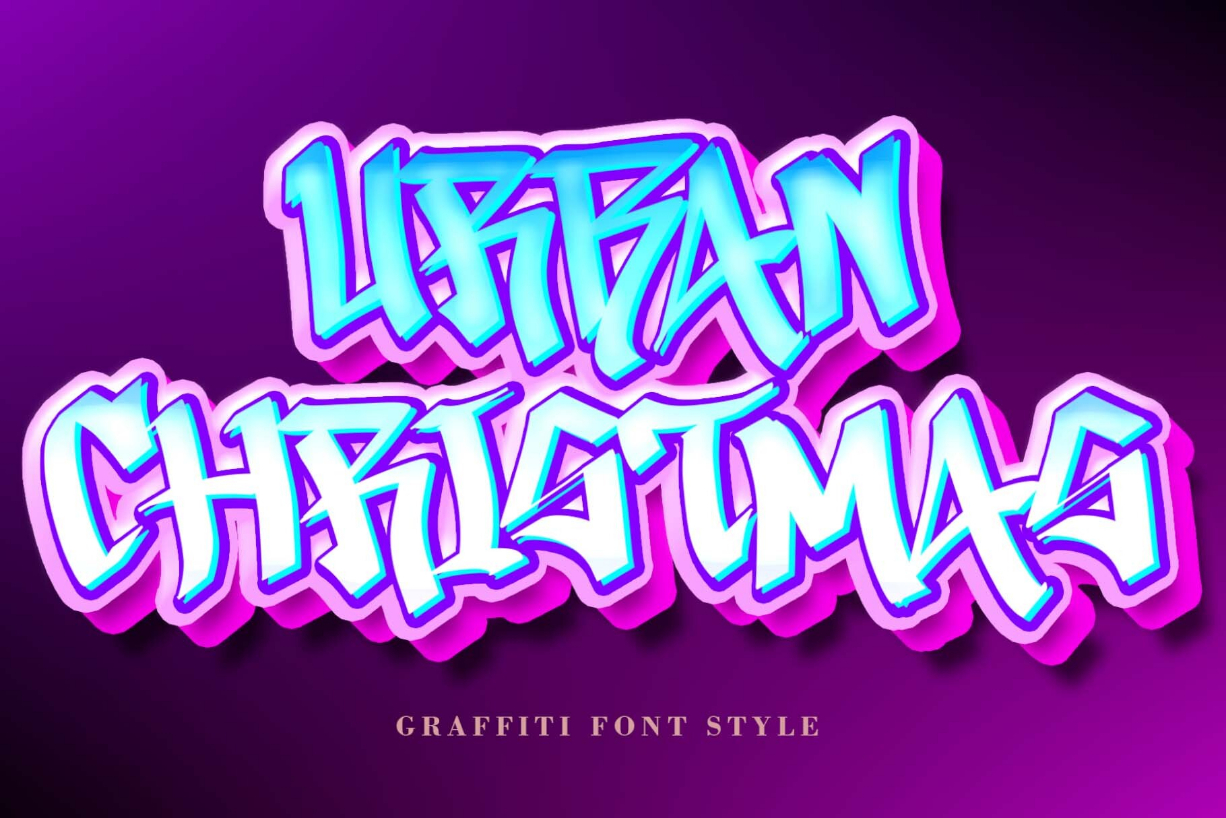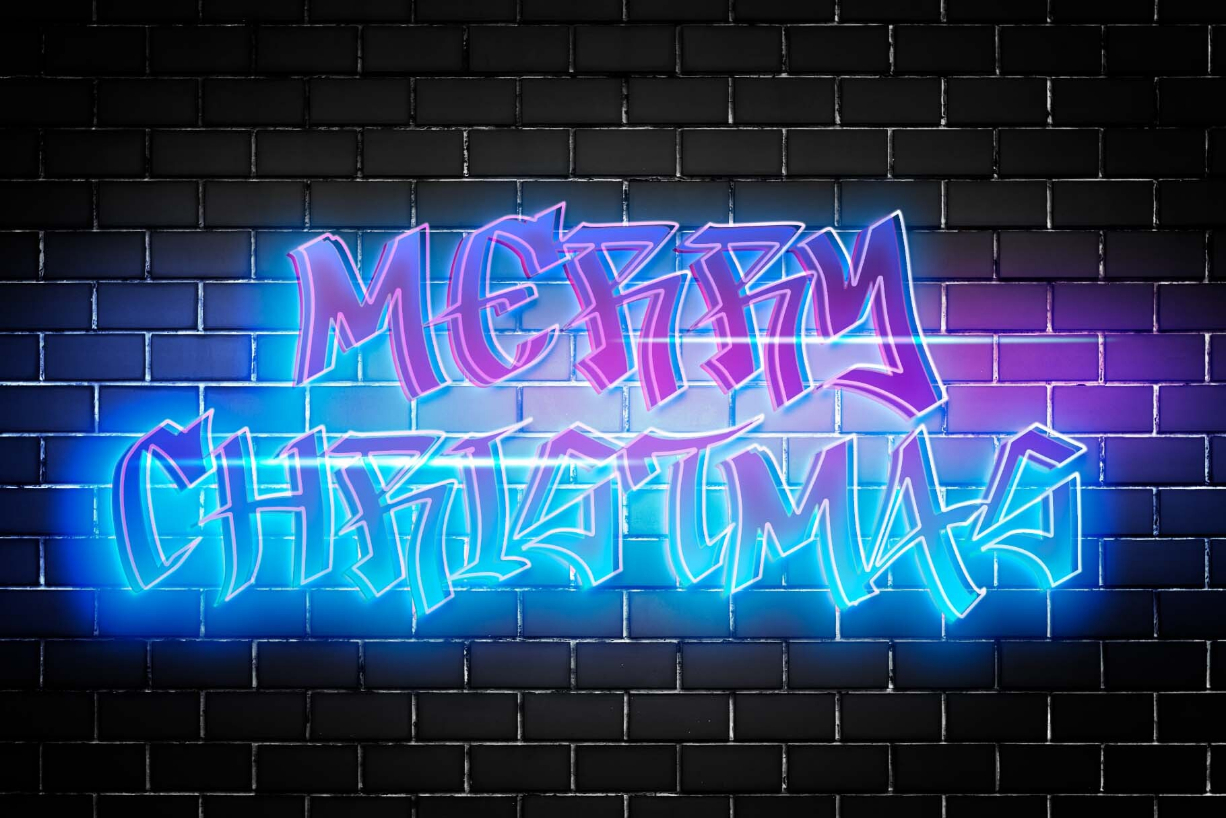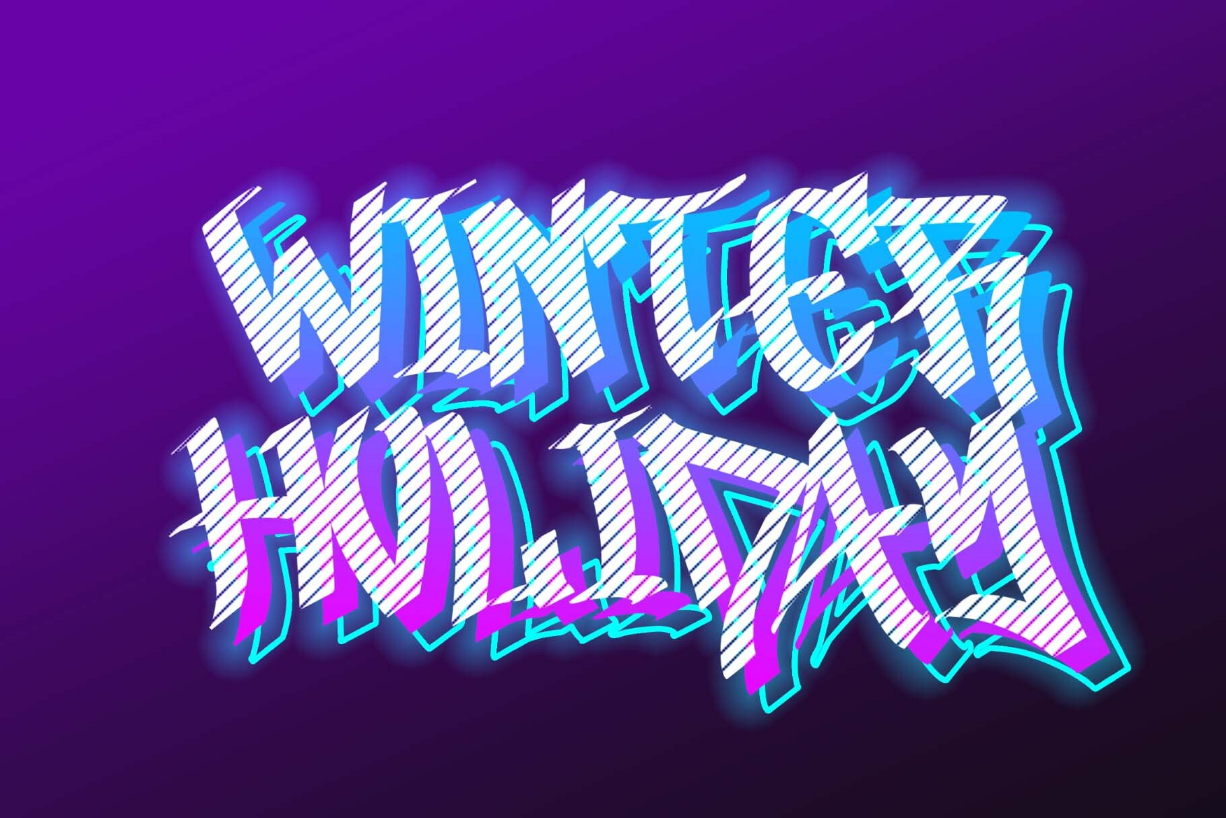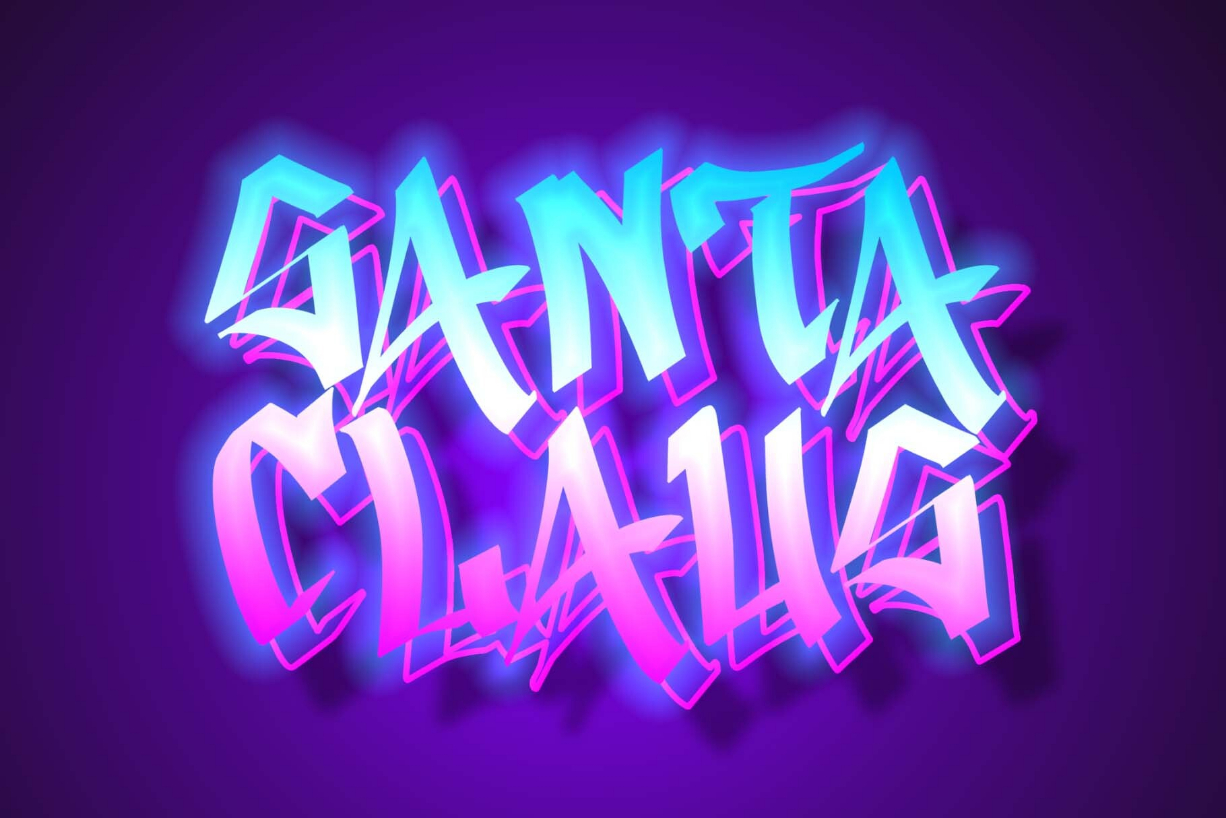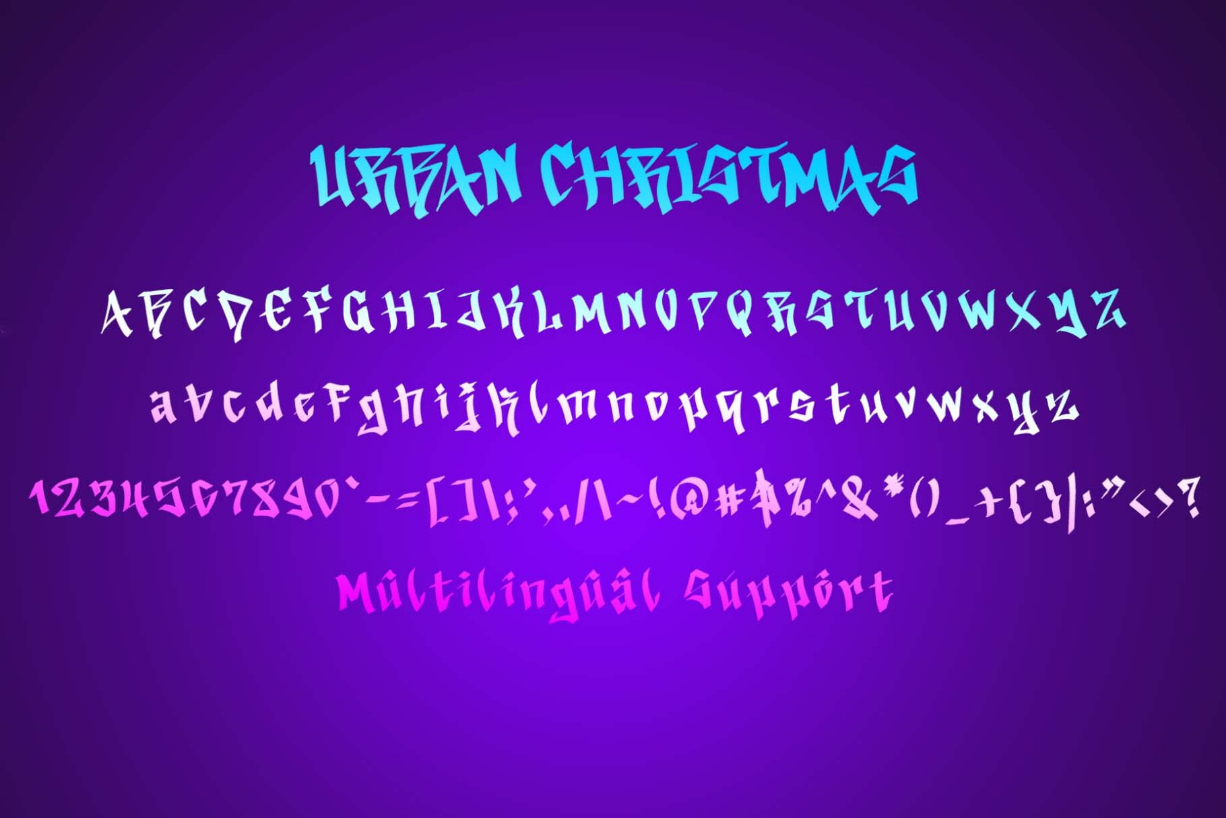
Urban Christmas Font
About Urban Christmas Font
Urban Christmas” is a unique and elegant graffiti font. This font is equipped with uppercase, lowercase, numerals, punctuation, and multilingual support. Very suitable for street fonts, city wall fonts, Christmas greetings, winter, holidays, Christmas, logos, and others.